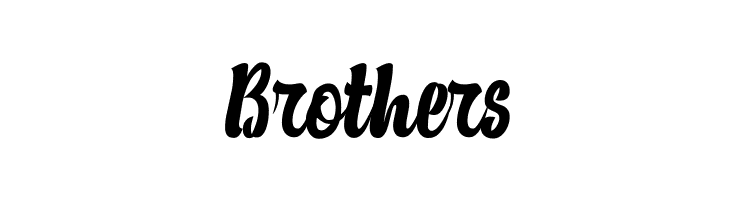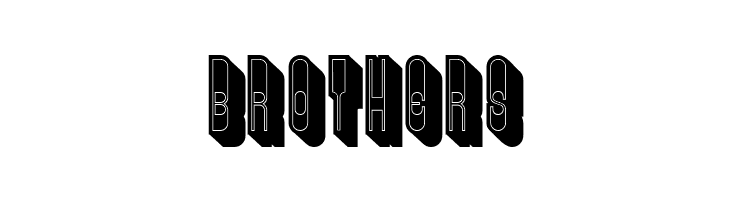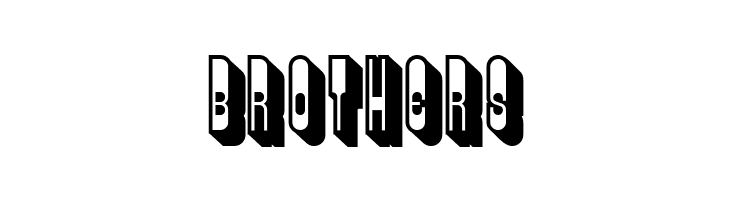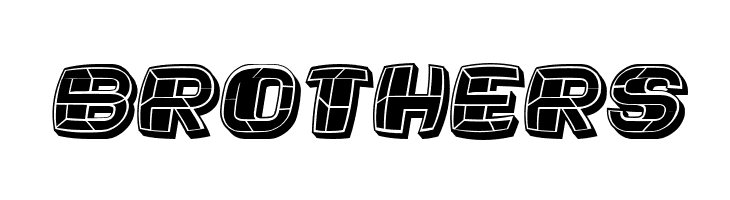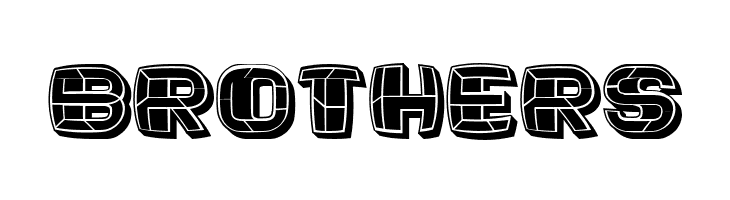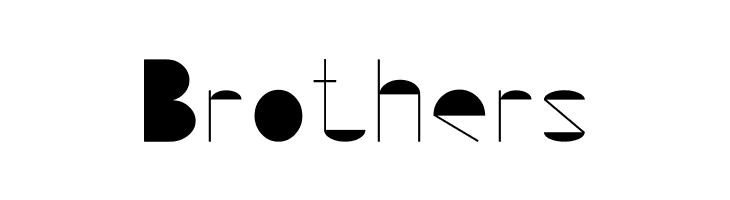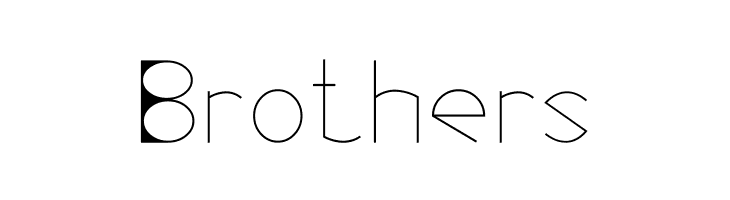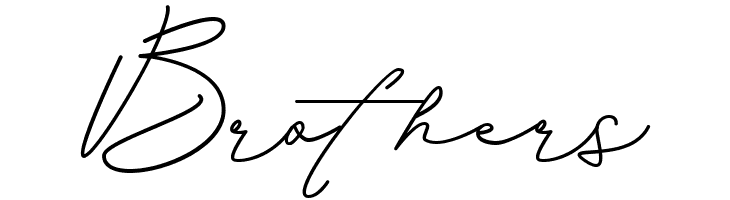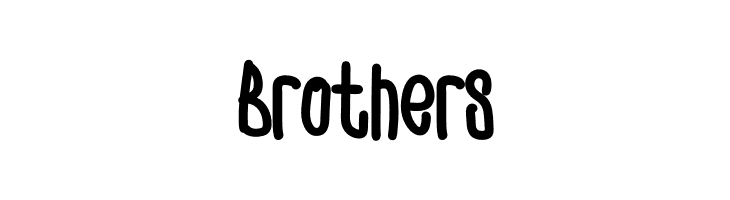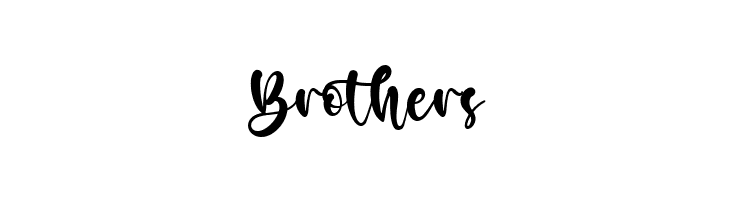
An elegant, cursive handwritten font with high contrast and fluid strokes.
An elegant, flowing script font with ornate uppercase and smooth lowercase letters.
An ornate and decorative script font with flowing, interconnected letterforms.
An ornate and decorative script font with intricate swirls and flourishes.
A modern serif font with sharp edges and balanced structure.
A modern sans-serif font with clean lines and a professional appearance.
An expressive, calligraphic font with dynamic strokes and artistic flair.
A modern, elegant font with high contrast and slender letterforms.
A modern, geometric font with bold, angular characters and creative use of negative space.
A modern, geometric font with clean lines and a minimalist aesthetic.
A bold, cursive font with a playful and energetic style.
A playful, bold handwritten font with rounded, irregular letterforms.
A charming and elegant script font with fluid, connected letterforms.
A bold, three-dimensional font with a vintage, shadowed style.
A delicate, flowing script font with elegant curves and a handwritten style.
A delicate, elegant handwritten font with flowing, connected letterforms.
A bold, three-dimensional font with strong shadow effects and a decorative style.
A graceful script font with flowing, connected strokes and decorative flourishes.
A bold, futuristic font with geometric shapes and sharp angles.
A bold, three-dimensional italic font with a modern, geometric style.
A cursive, handwritten-style font with elegant, flowing strokes.
An elegant script font with intricate, flowing lines and decorative flourishes.
A bold, geometric font with a three-dimensional, outlined design.
A casual, handwritten font with a fluid and elegant style.
A casual, handwritten font with thin, flowing strokes and elegant style.
A playful, handwritten font with irregular strokes and a whimsical style.
A bold and expressive script font with flowing, interconnected letters.
A bold, expressive script font with a handwritten style.
An elegant, flowing script font with a calligraphic style.
A fluid, handwritten font with an organic and casual style.
A monogram-style font with bold serif letters encased in decorative circular frames.
An elegant cursive script font with fluid, connected letters and graceful curves.
A bold, expressive script font with interconnected, flowing letters.
A graceful and flowing script font with a handwritten style.